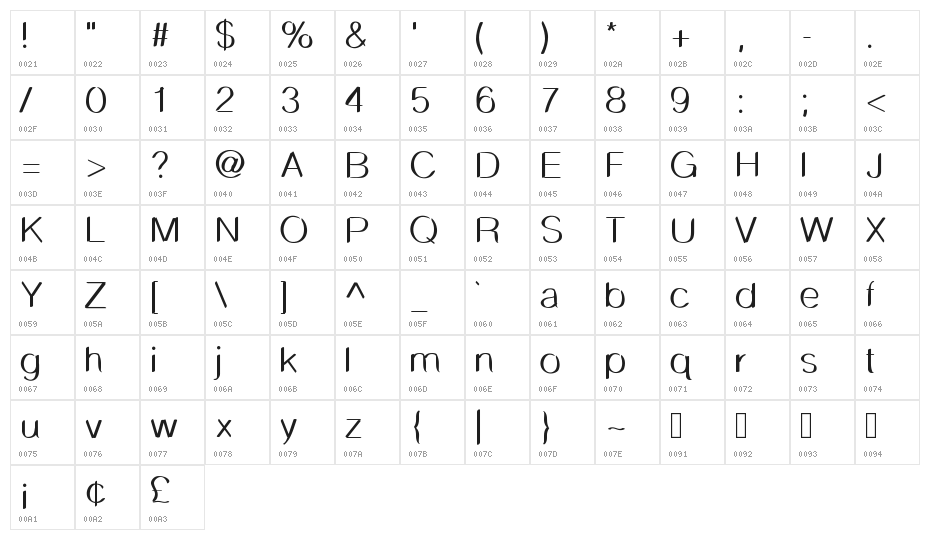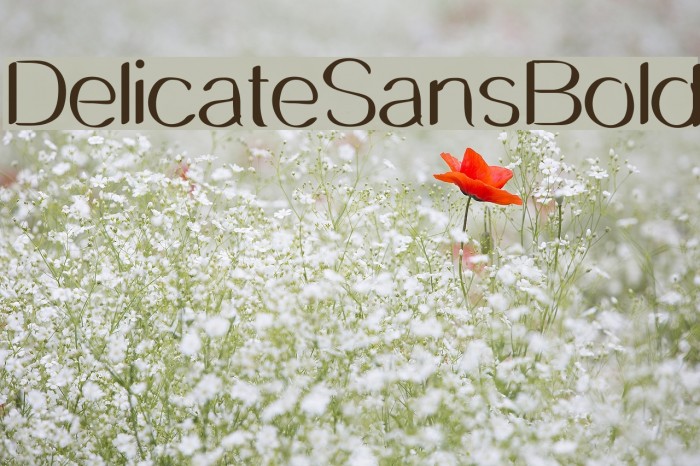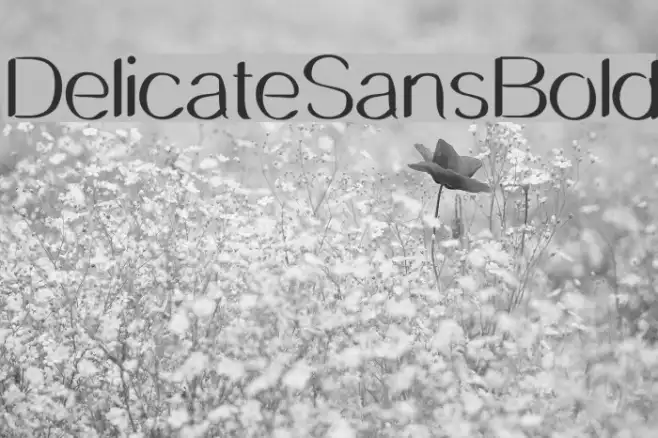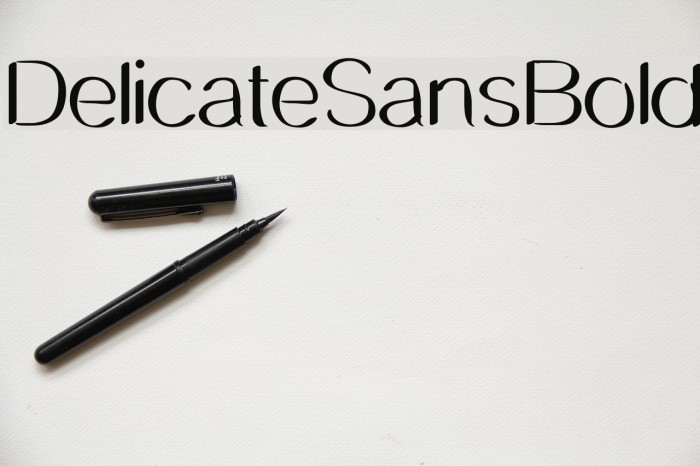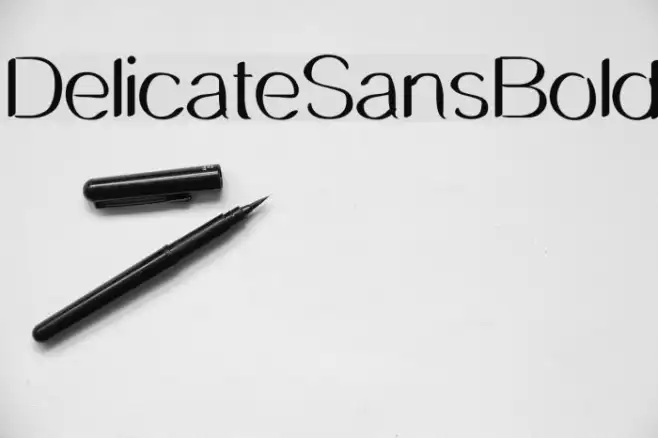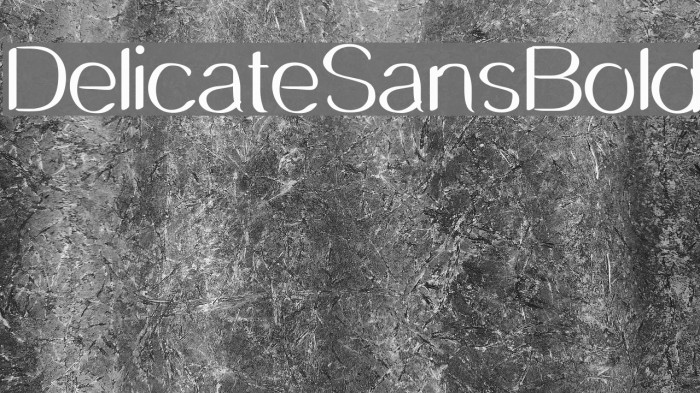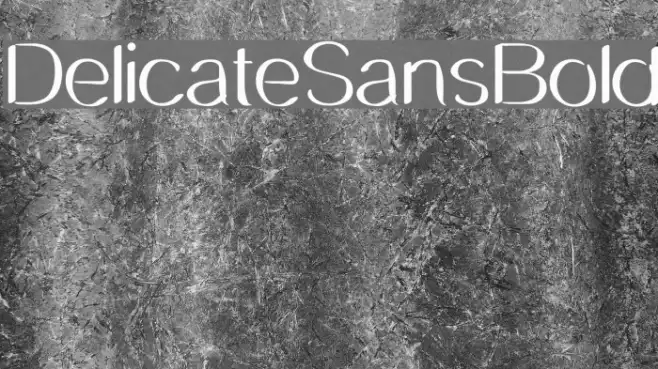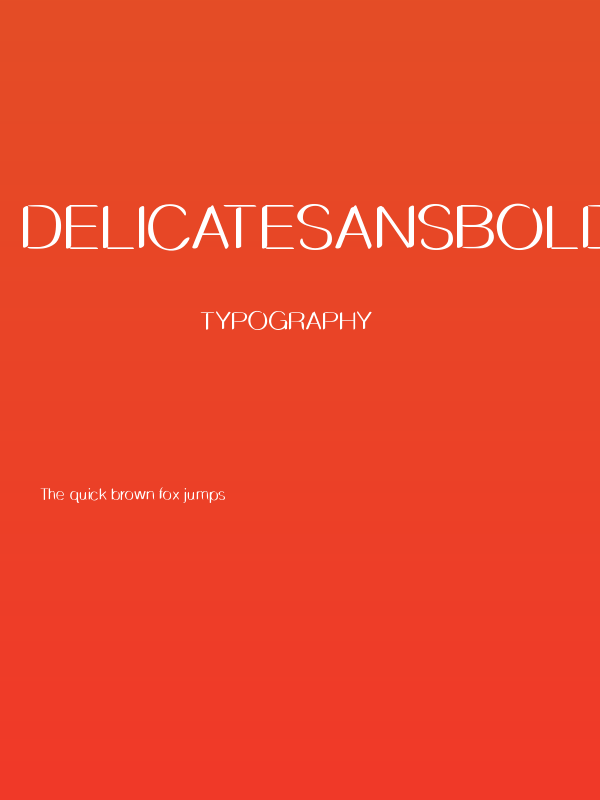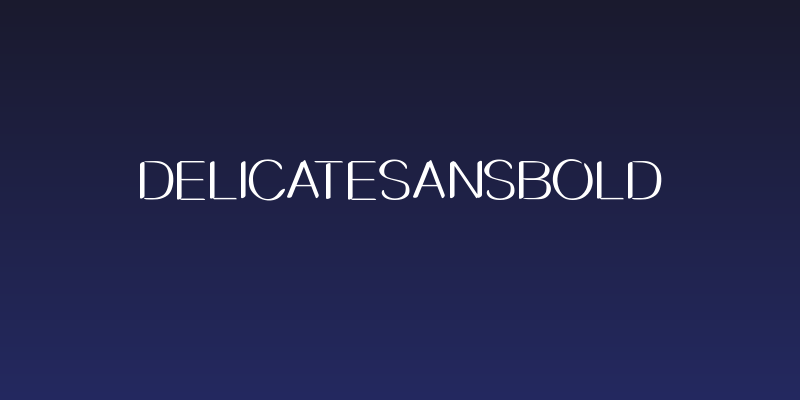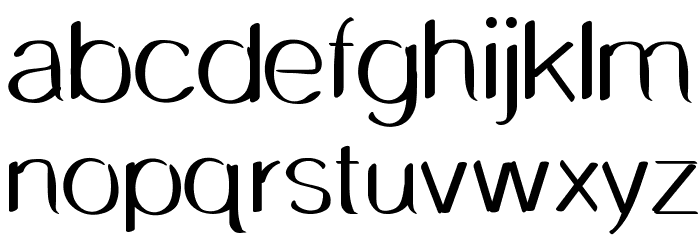
DelicateSansBold Font
DelicateSansBold Description
This font features a sleek and modern sans-serif style with a bold weight. The characters are clean and minimalistic, with smooth curves and straight lines that create a sense of elegance and simplicity. The uppercase letters are slightly taller than the lowercase, providing a balanced and harmonious appearance. Numbers and special characters are designed to match the overall aesthetic, ensuring consistency across all text elements. The font's design is versatile, making it suitable for a wide range of applications from digital to print media.
| Proposed Projects | Ideal for branding, advertising, website headers, and editorial design. |